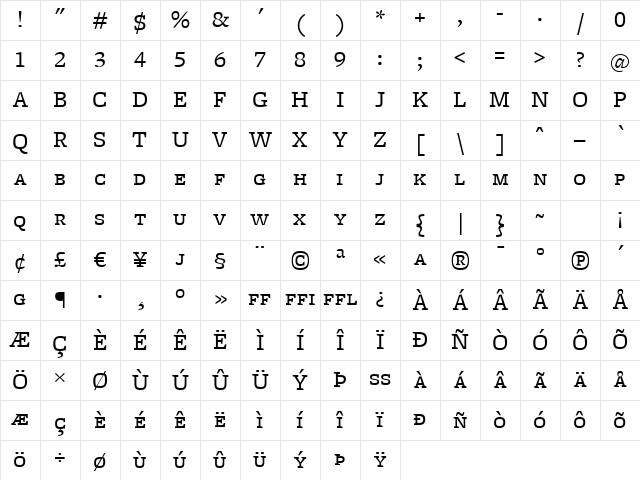
FreightMicro BookSC
Foundry: Joshua Darden & Phil's Fonts, Inc
Complete FreightMicro BookSC glyph index. Displaying only characters natively supported by FreightMicro BookSC font.
Design Context for FreightMicro
FreightMicro is a composed and adaptable typeface that performs quietly and consistently across a wide range of design contexts.